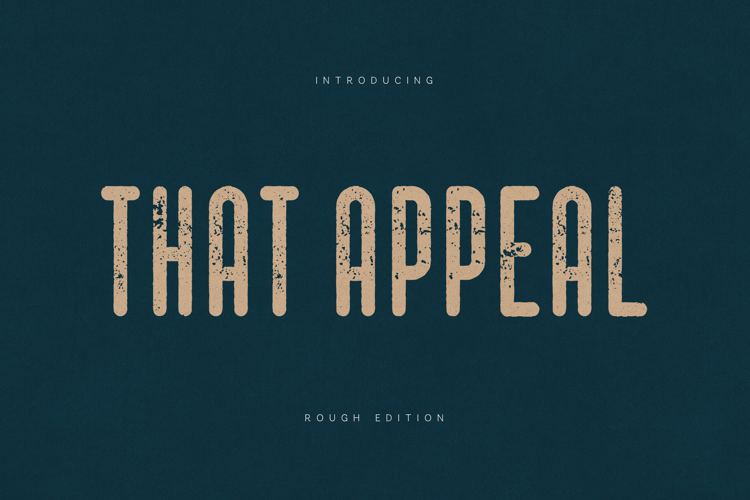
Tht Appeal Rough Condensed Font
Thаt Appeal is a bold condensed display font featuring a distressed rough texture that adds authentic vintage character to every letter. Inspired by retro posters, industrial signage, and classic print aesthetics, this typeface delivers strong impact while maintaining clean structure and readability.
Its tall, narrow proportions make it perfect for headlines, branding, packaging, posters, design, editorial layouts, and bold statement graphics. The textured finish gives designs a handcrafted, worn-in feel ideal for modern vintage and retro-inspired projects.
Thаt Appeal includes uppercase letters, numbers, punctuation, multilingual characters, and stylistic alternates — all carefully designed with a consistent rough texture.
• Uppercase Characters
• Rough Textured Style
Perfect for branding, logos, merchandise, social media graphics, posters, packaging, and strong typographic compositions.